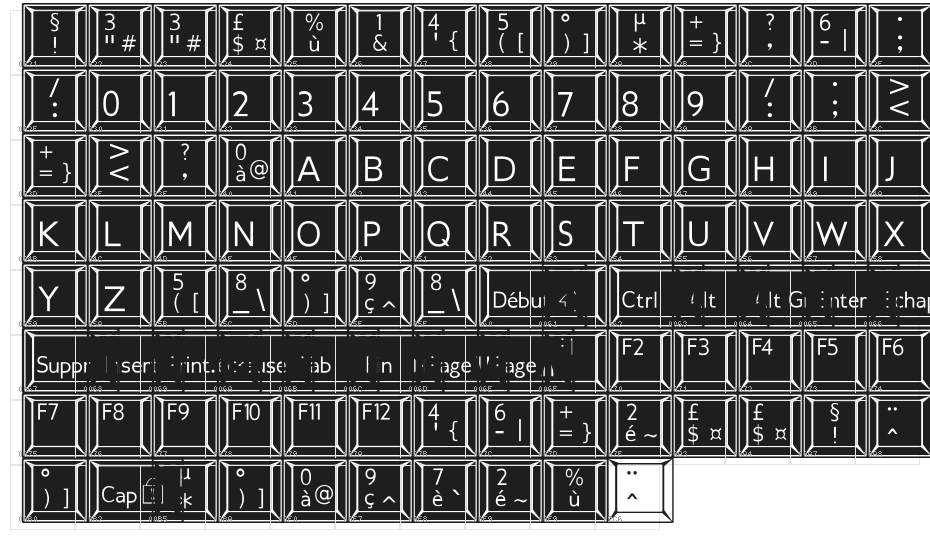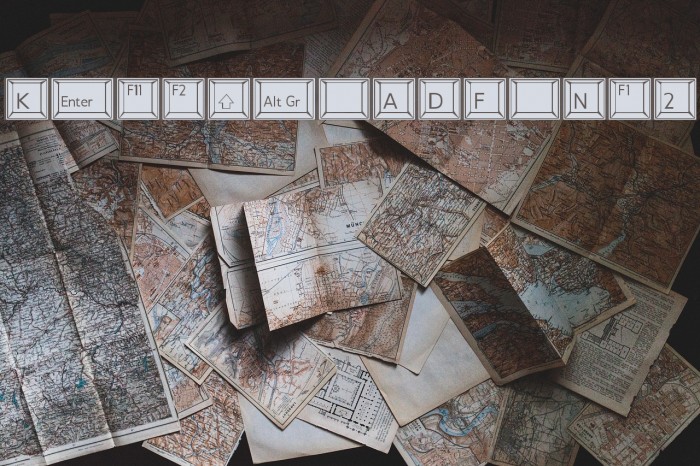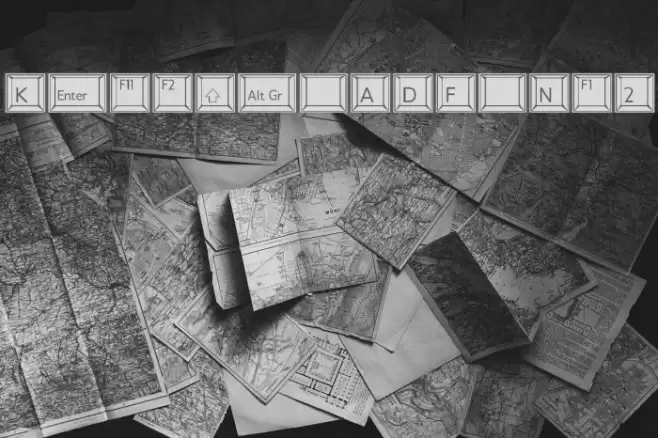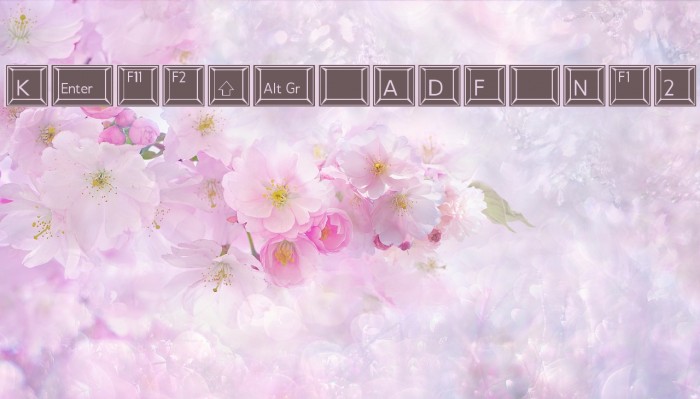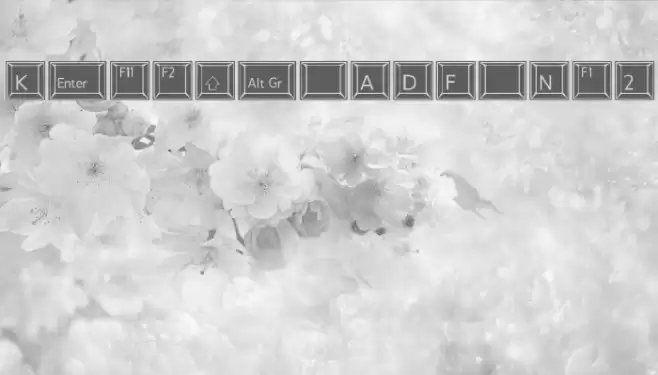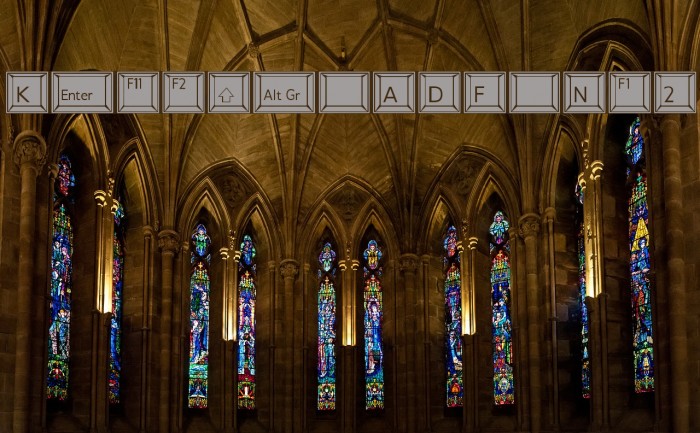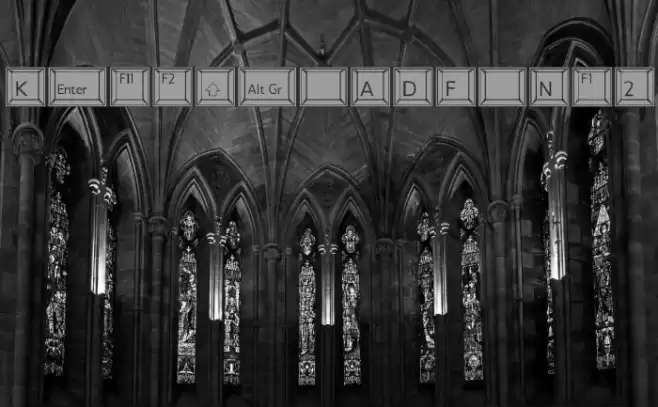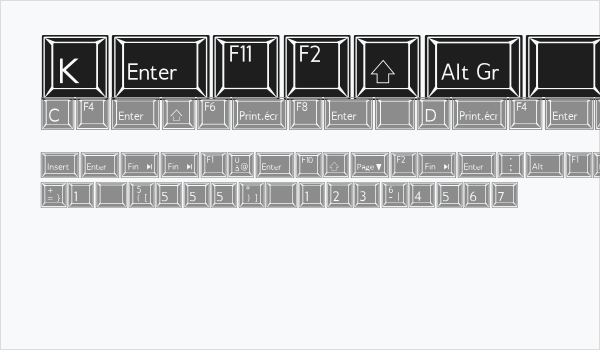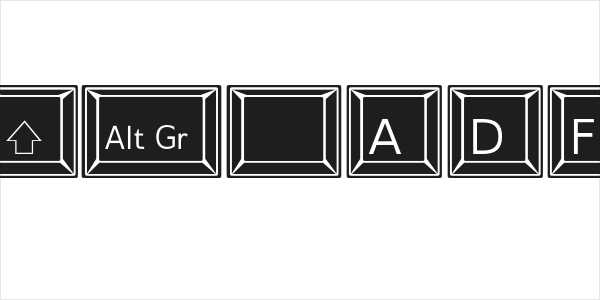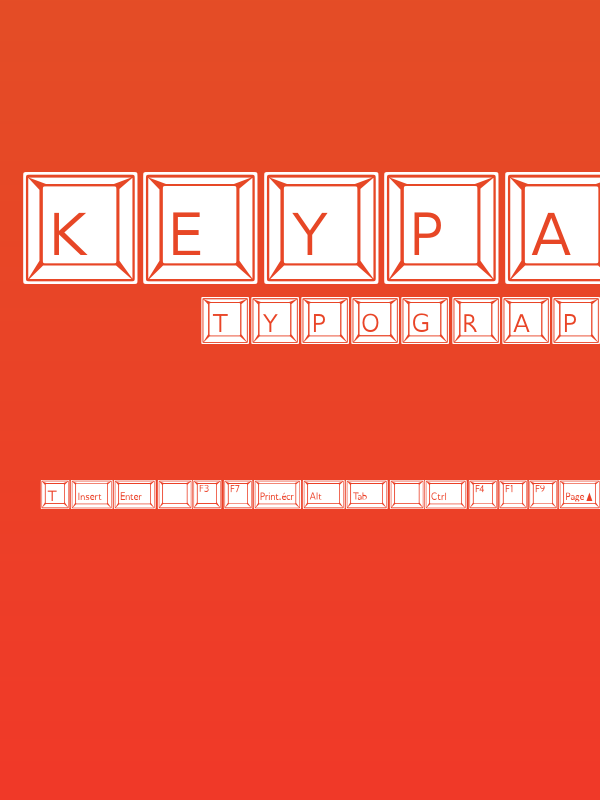
Keypad ADF No2 Font
Keypad ADF No2 Description
This font is designed to mimic the appearance of keys on a computer keyboard, with each character enclosed in a square, beveled-edge box. The letters and numbers are bold and clear, making them highly legible. The style is reminiscent of vintage typewriter keys, with a modern twist. The characters are evenly spaced within their boxes, providing a uniform and structured look. This font includes uppercase letters, numbers, and a variety of special characters, each presented in a consistent style. The overall aesthetic is both functional and decorative, suitable for projects that require a tech-inspired or retro feel.
| Overall Style | Modern, Vintage |
| Proposed Projects | Ideal for tech-themed designs, retro posters, digital art projects, and educational materials. |